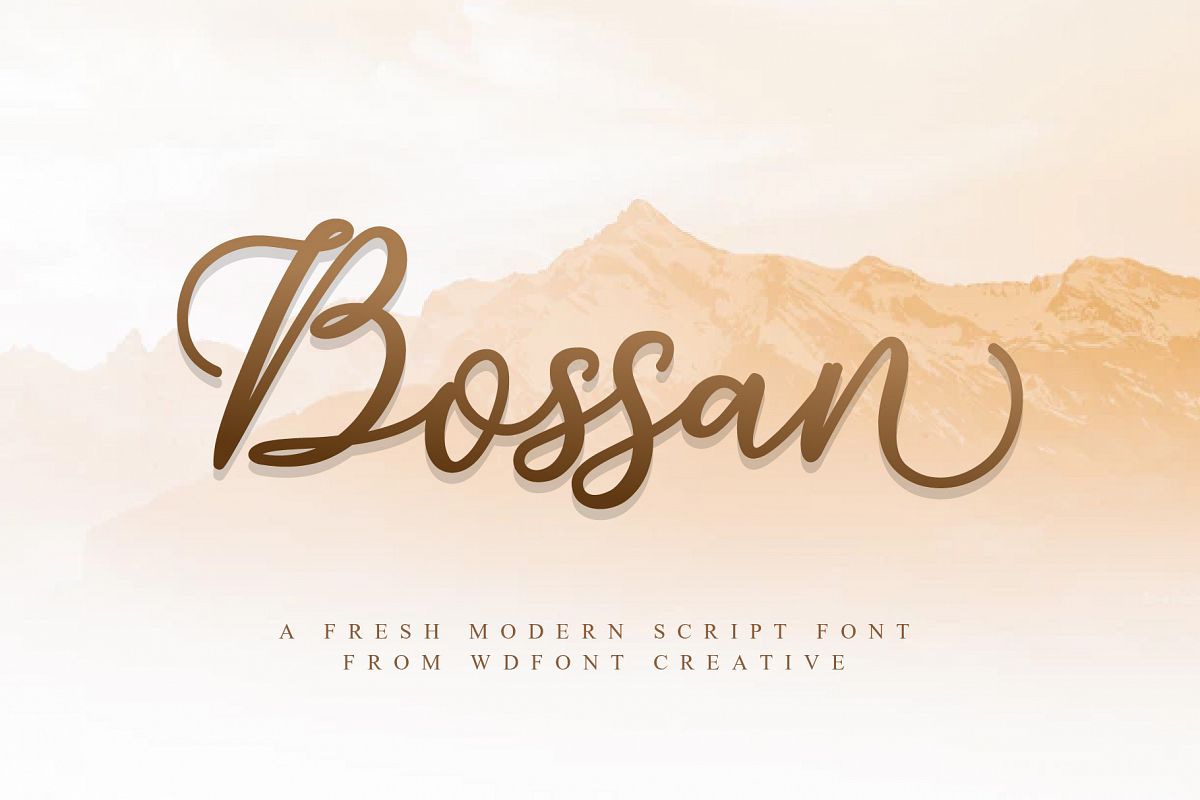
Bossan | A Fresh Modern Script
Bossan is a beautiful, modern handwritten font. So beautiful on invitation like greeting cards, branding materials, business cards, quotes, posters, and more!!
The alternative characters were divided into several Open Type features such as Swash, Stylistic Sets, Stylistic Alternates, Contextual Alternates. The Open Type features can be accessed by using Open Type savvy programs such as Adobe Illustrator, Adobe InDesign, Adobe Photoshop Corel Draw X version, And Microsoft Word. And this Font has given PUA unicode (specially coded fonts). so that all the alternate characters can easily be accessed in full by a craftsman or designer.